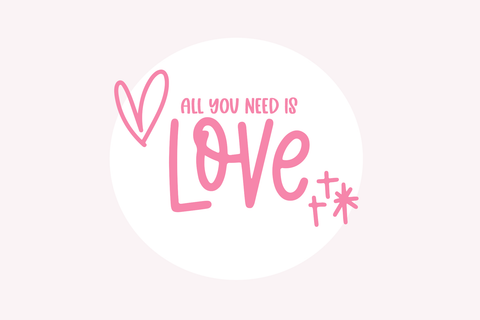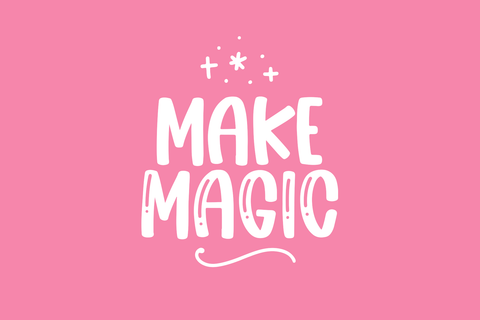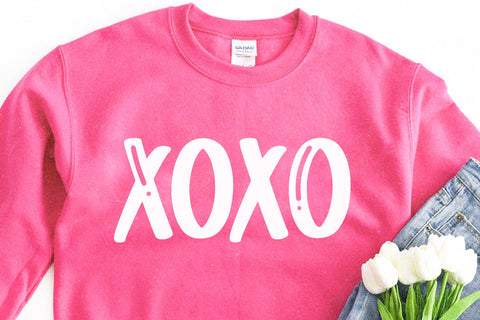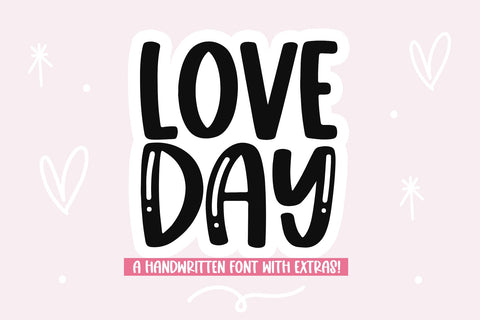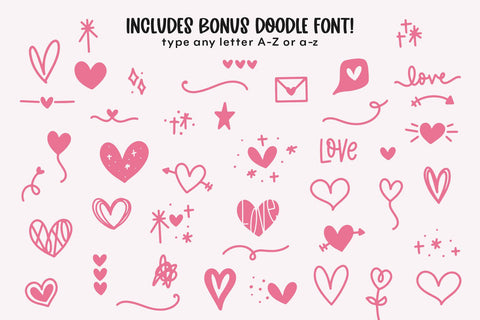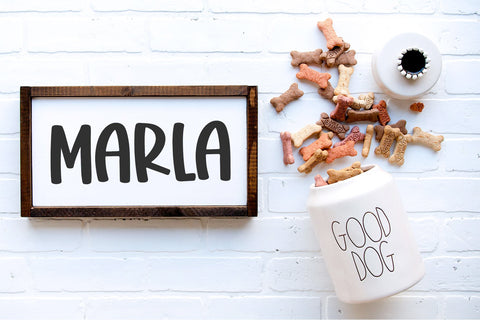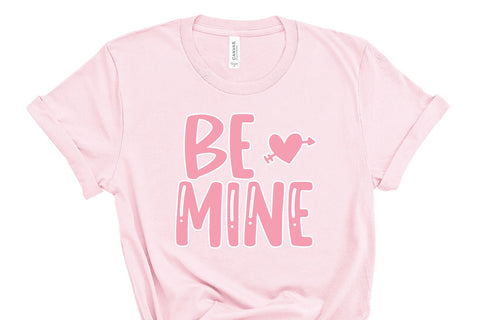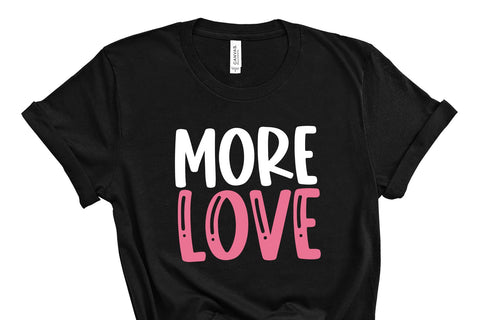
Love Day - Handwritten Font with Valentine's Doodles
Love Day is a cute handwritten font in both solid and shiny styles.
Capital letters = solid
Lowercase letters = lines/hearts
Love Day includes a doodle font (All The Hearts) which includes 52 hand-drawn images and embellishments.
This font is perfect for all of your Valentine's Day craft projects, svg deisgns, shirts, home decor, branding, logos and more!